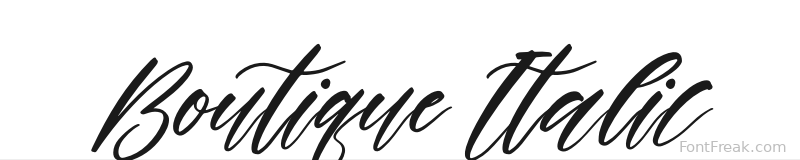
Boutique Italic
Boutique Italic is a distinctive script font designed by Perspectype Studio in 2021. This elegant typeface falls into the decorative category, characterized by its fluid, cursive style that exudes a sense of sophistication and charm. The font features a medium stroke weight with a moderate contrast, allowing for smooth readability while maintaining a stylish appearance. The letters have a natural flow, with graceful curves and swashes that add a touch of flair. The spacing is well-balanced, ensuring that each character stands out without feeling crowded, making it suitable for various design applications.
The versatility of Boutique Italic makes it an excellent choice for a variety of use cases. It shines in wedding invitations, where its romantic and elegant style can set the perfect tone for a special day. It is also ideal for restaurant menus, helping to create an inviting atmosphere that complements fine dining experiences. Additionally, this font is well-suited for fashion branding, enhancing logos and promotional materials with a chic, boutique feel. Content creators will find it perfect for social media graphics and blog headers, lending a touch of personality to their visual content.
What sets Boutique Italic apart is its ability to combine artistry with functionality. Its decorative elements are not just for aesthetics; they serve to enhance the overall message while maintaining clarity. This font is not just a typeface; it’s a statement piece that can transform ordinary text into captivating visual art.